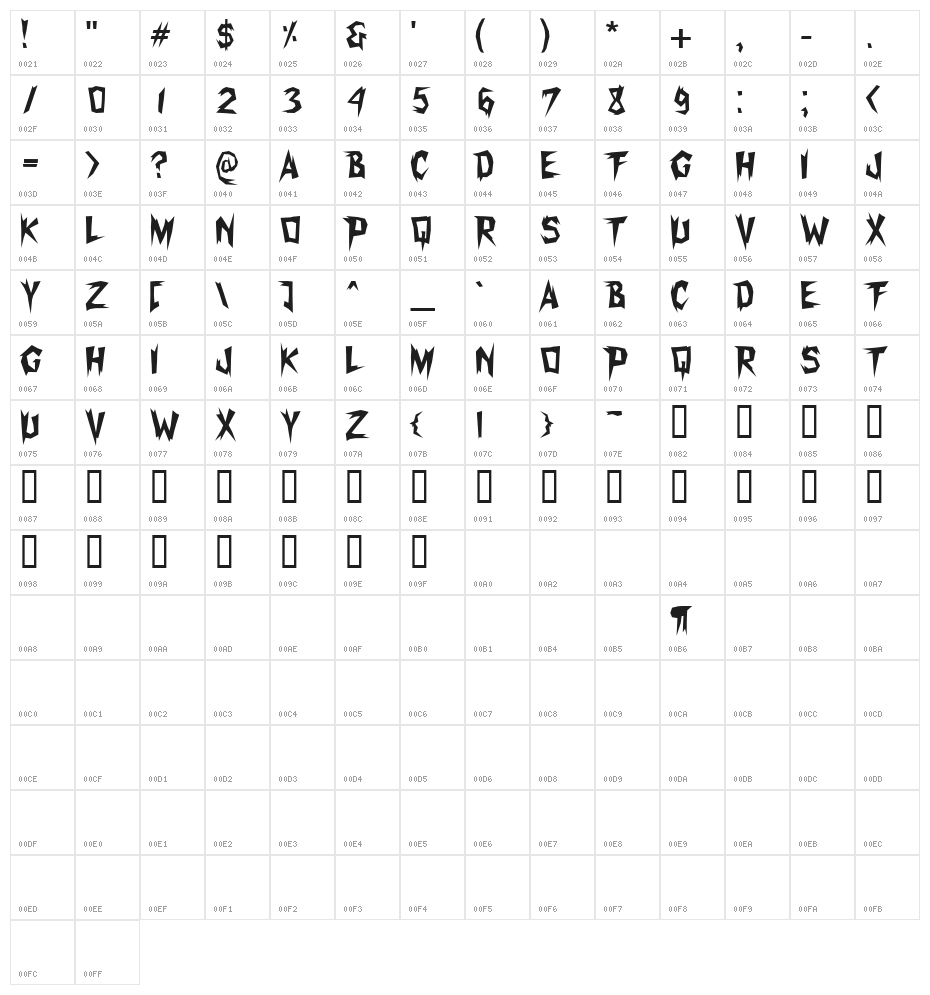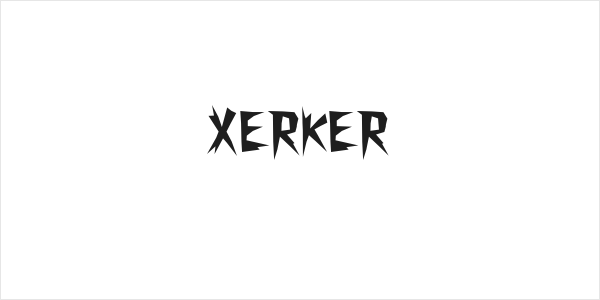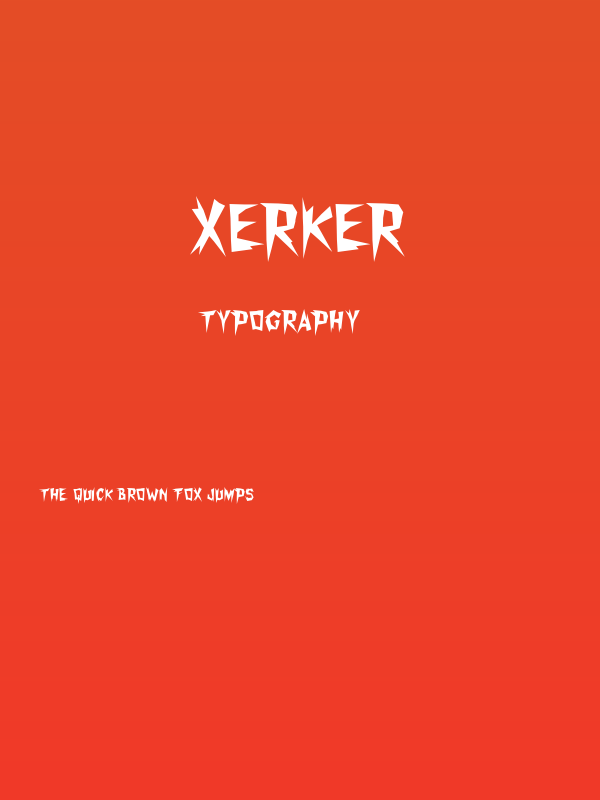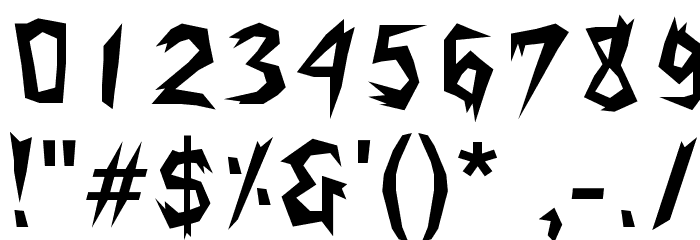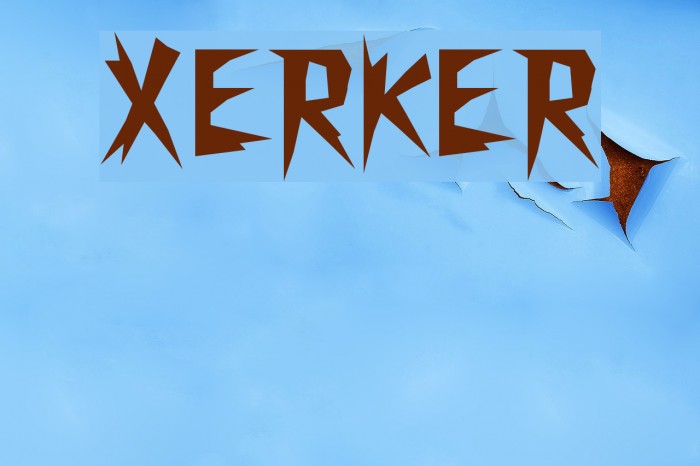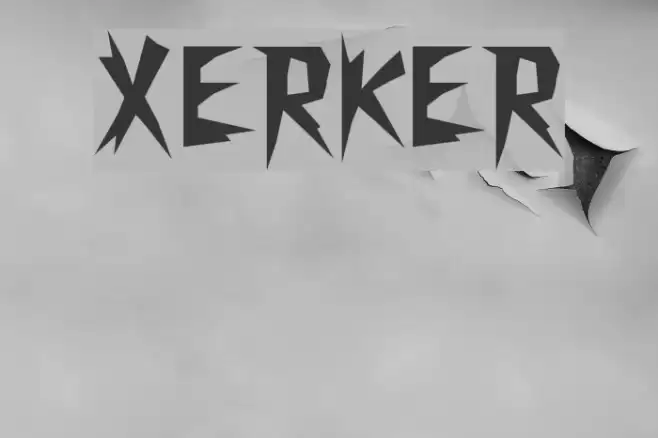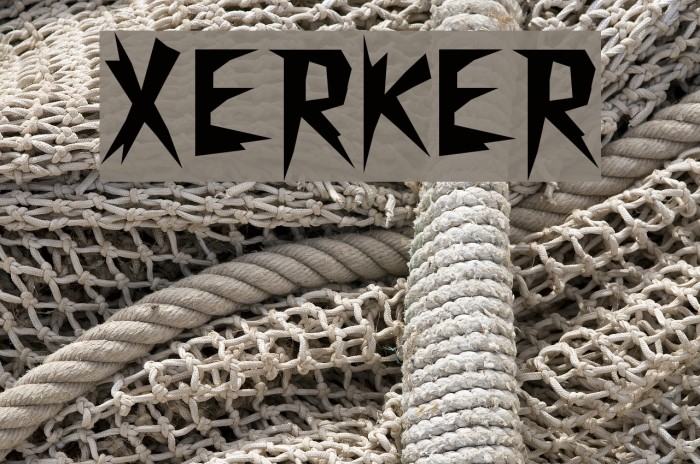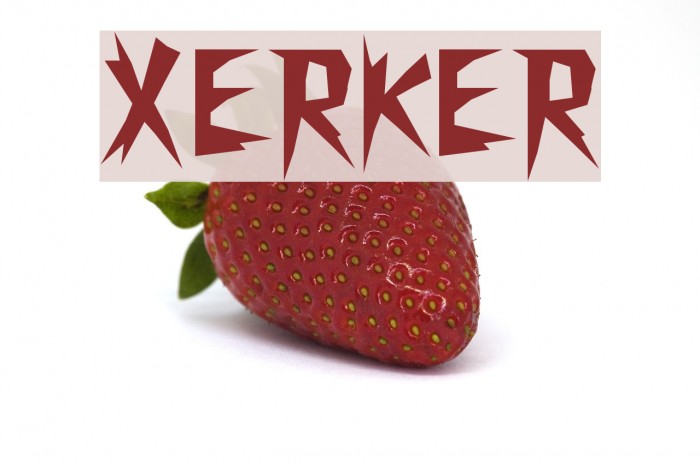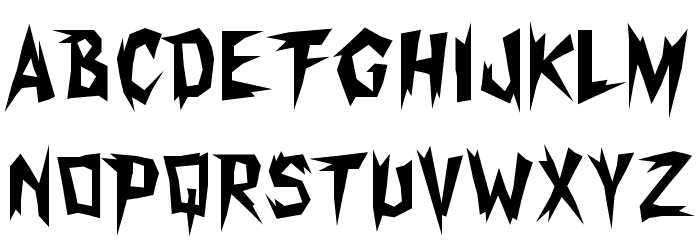
Xerker Font
Xerker Description
This font features a bold and aggressive design with sharp, angular edges and a jagged appearance. The characters are highly stylized, resembling shards or spikes, which gives them a dynamic and energetic feel. The uppercase and lowercase letters maintain a consistent style, with each character exhibiting unique cuts and angles that contribute to the overall edgy aesthetic. The numbers and special characters follow the same design principles, ensuring a cohesive look across all glyphs. This font is ideal for projects that require a strong, impactful visual statement.
| Overall Style | Modern, Edgy |
| Proposed Projects | Perfect for music album covers, video game titles, posters, and branding for edgy or alternative brands. |